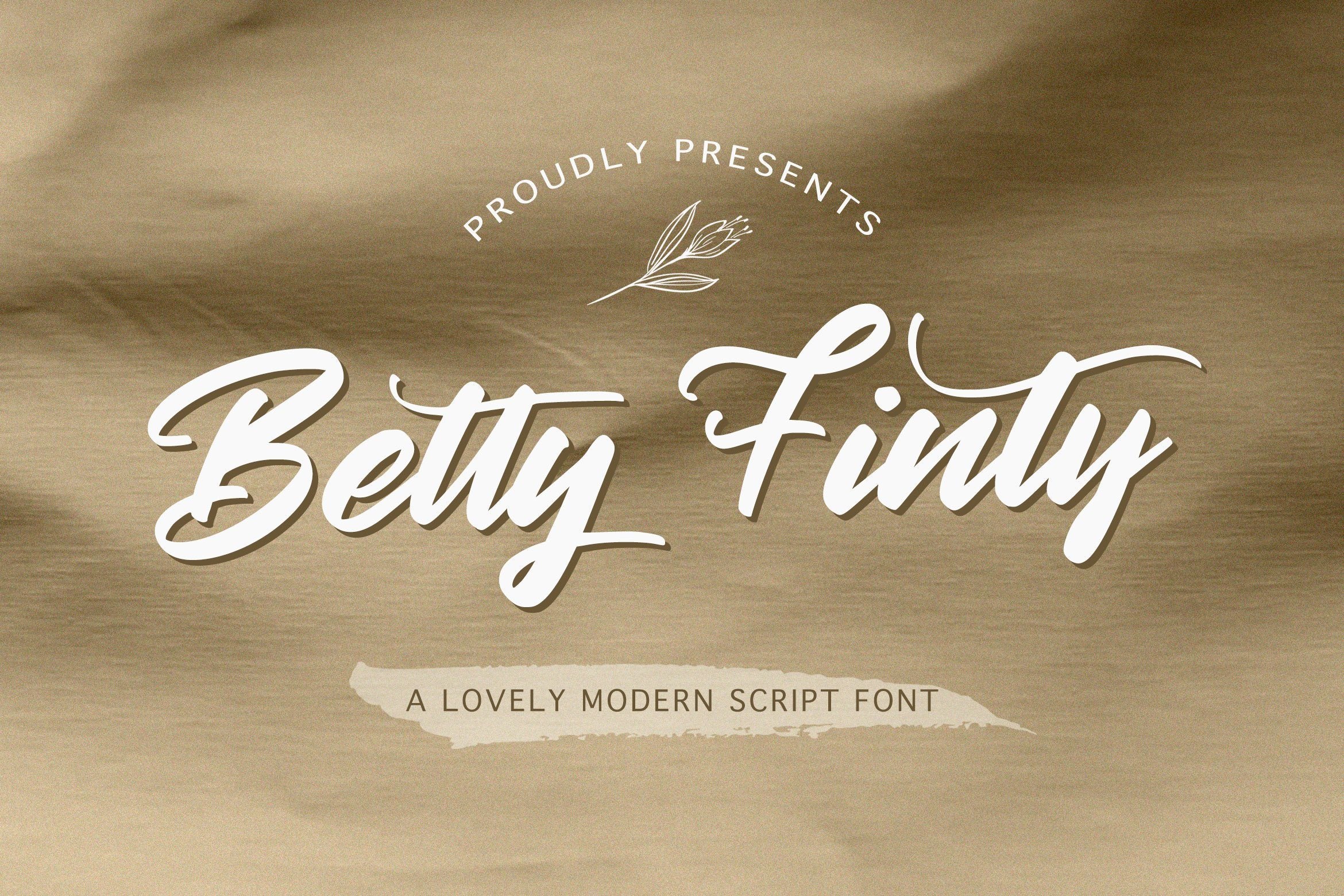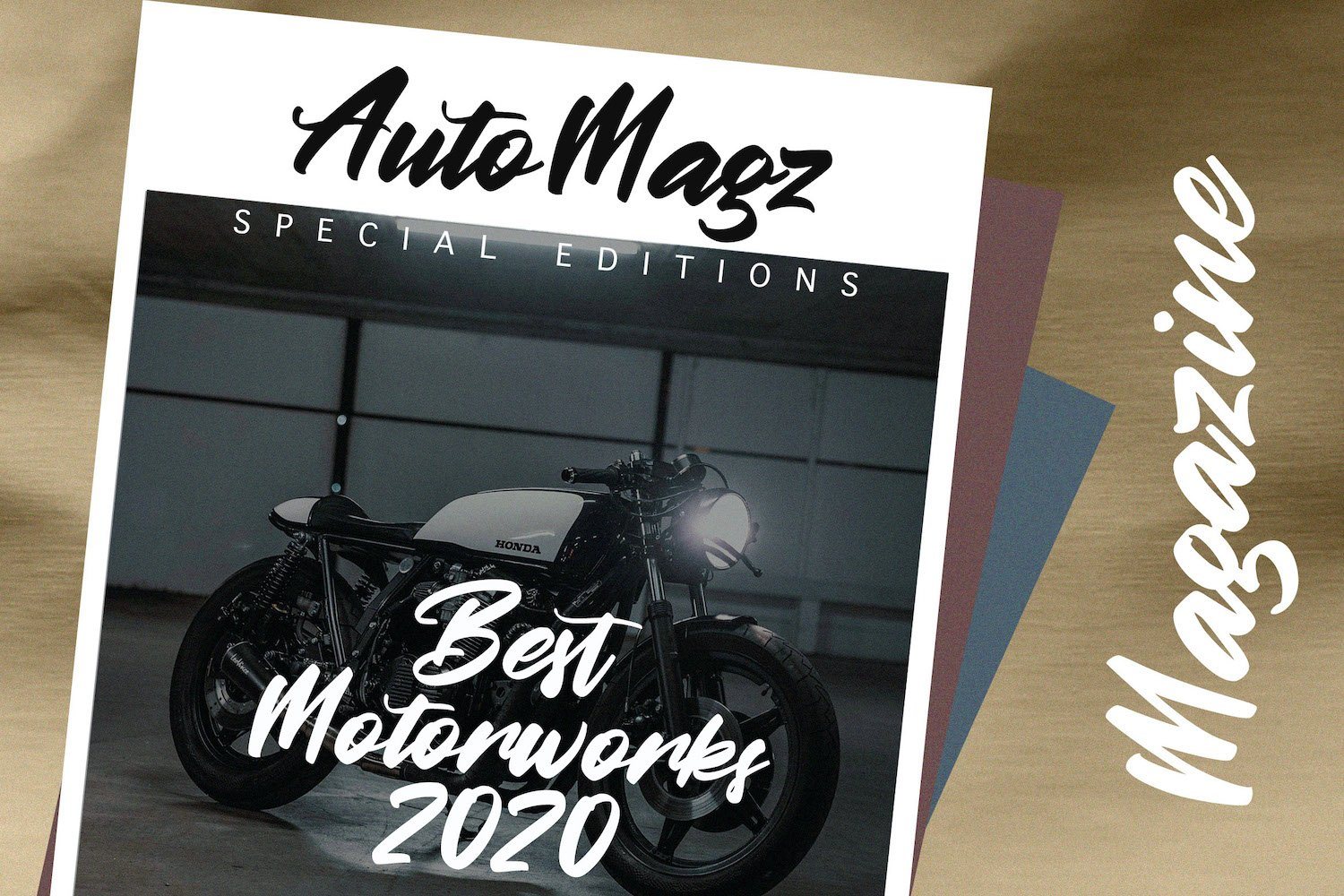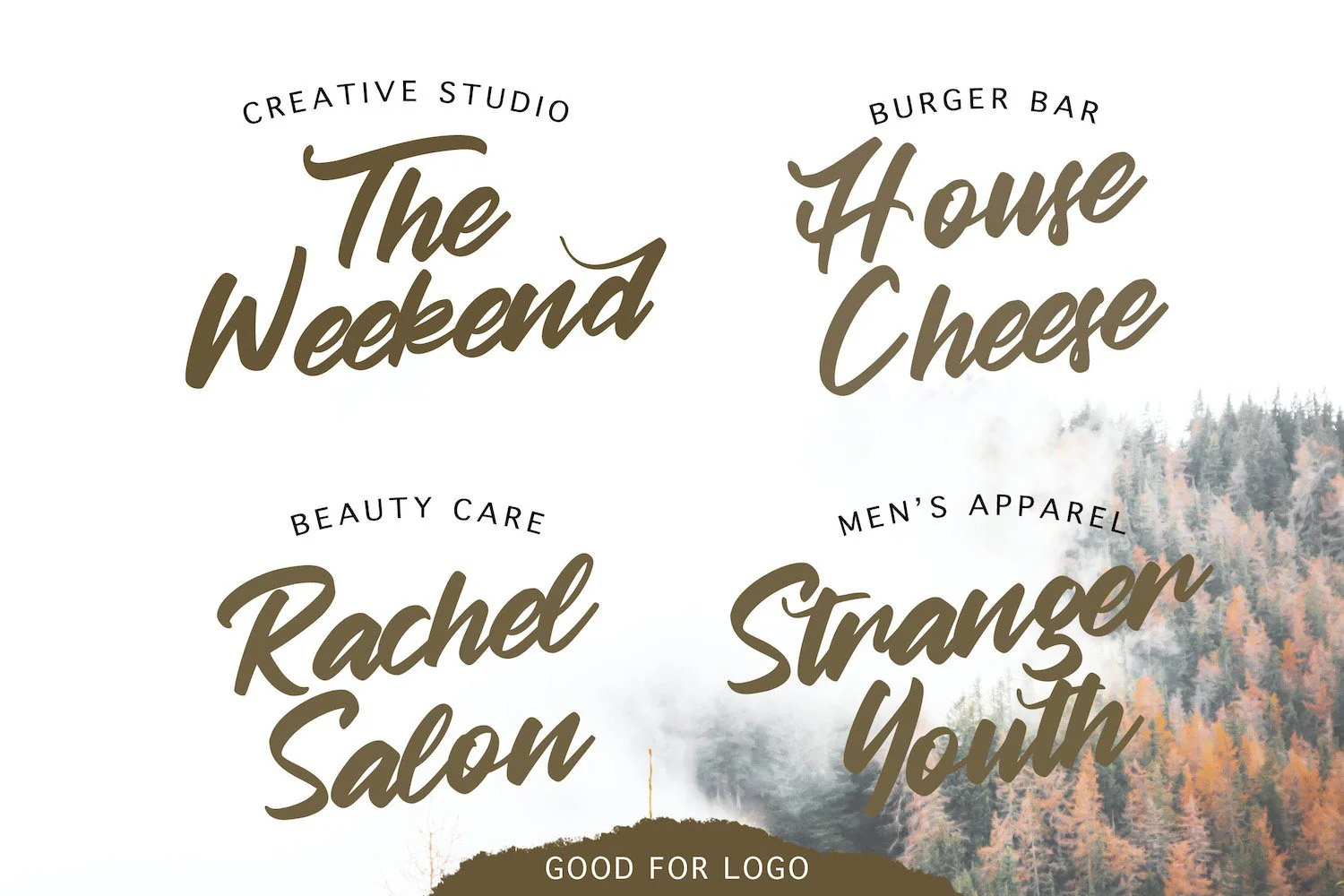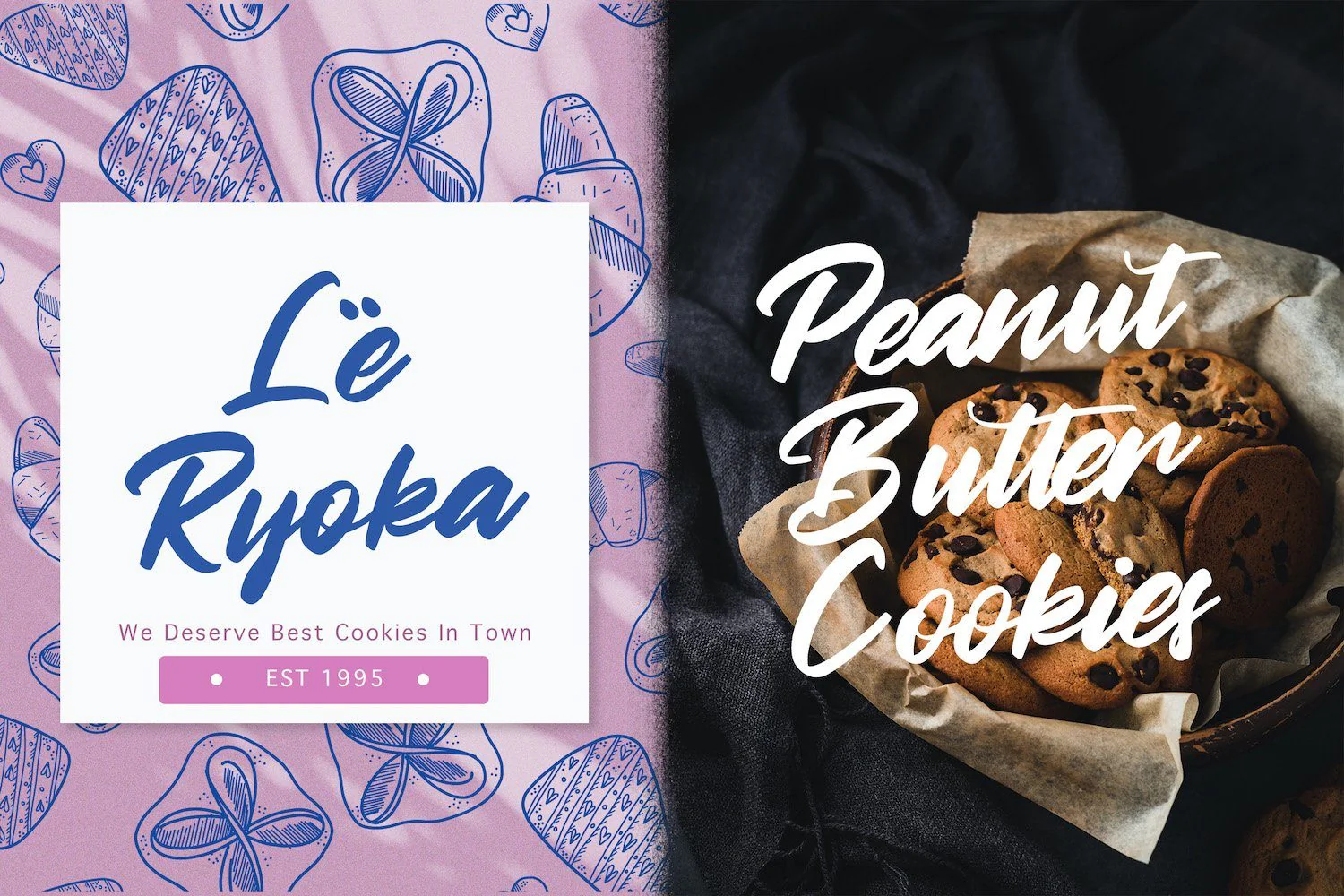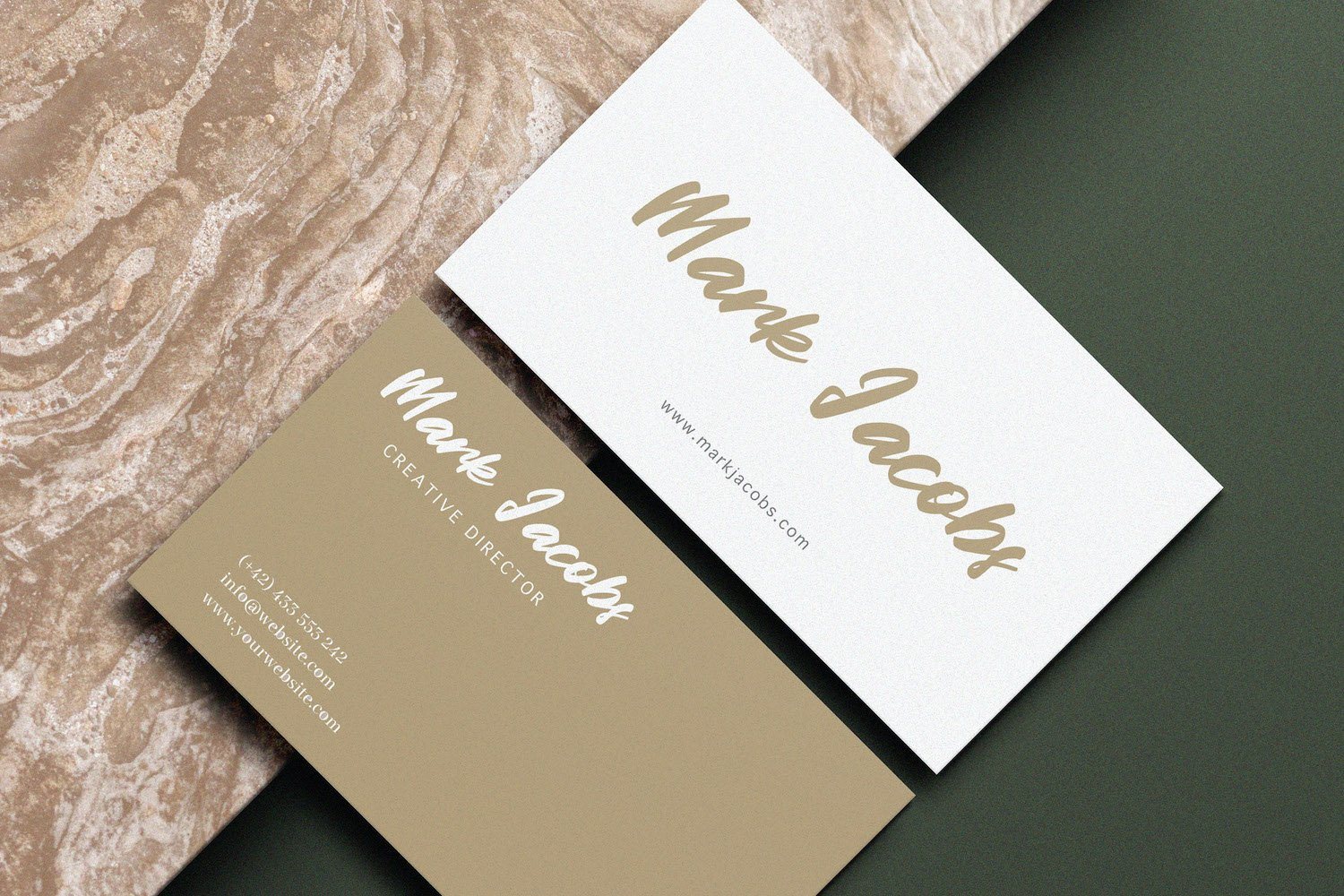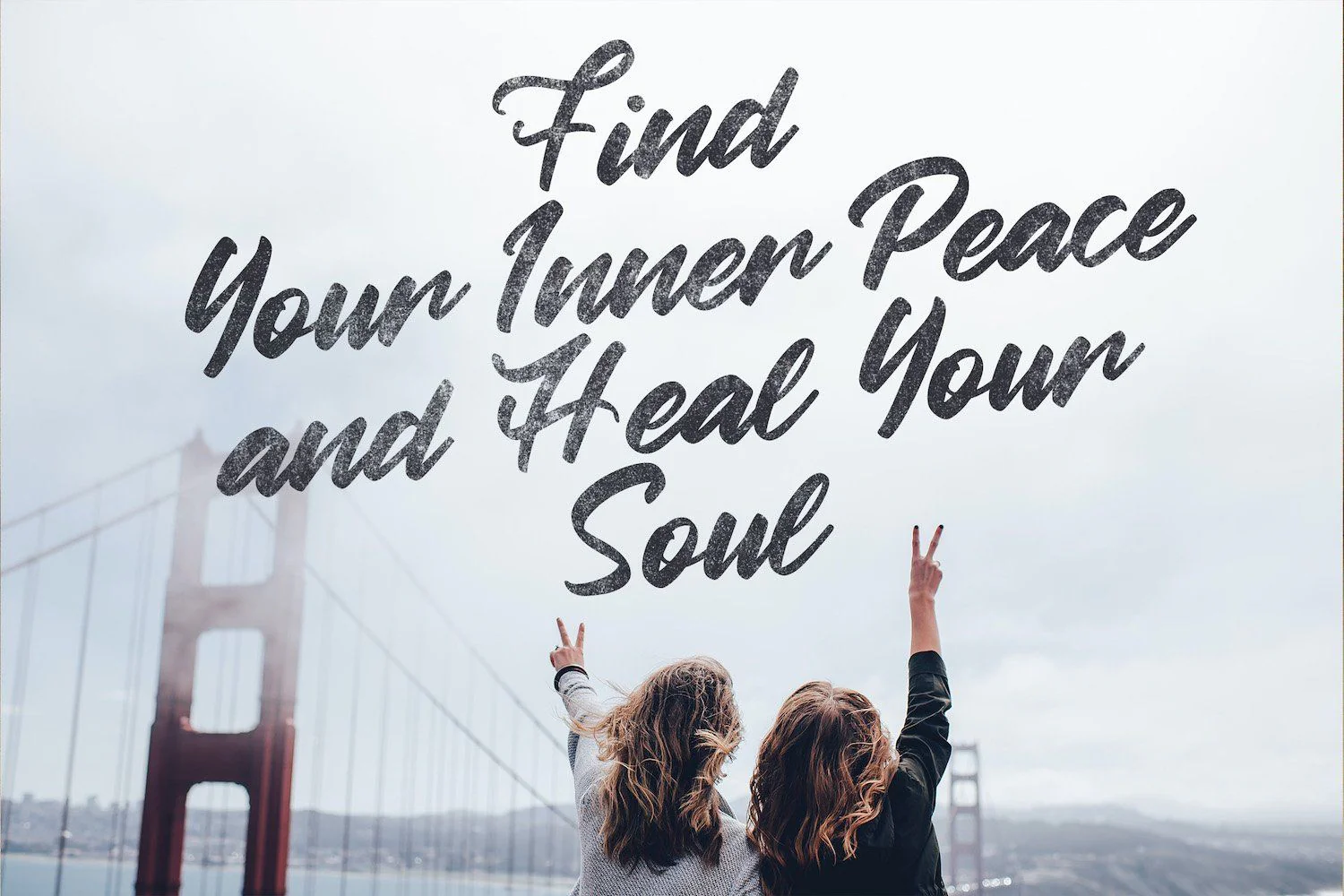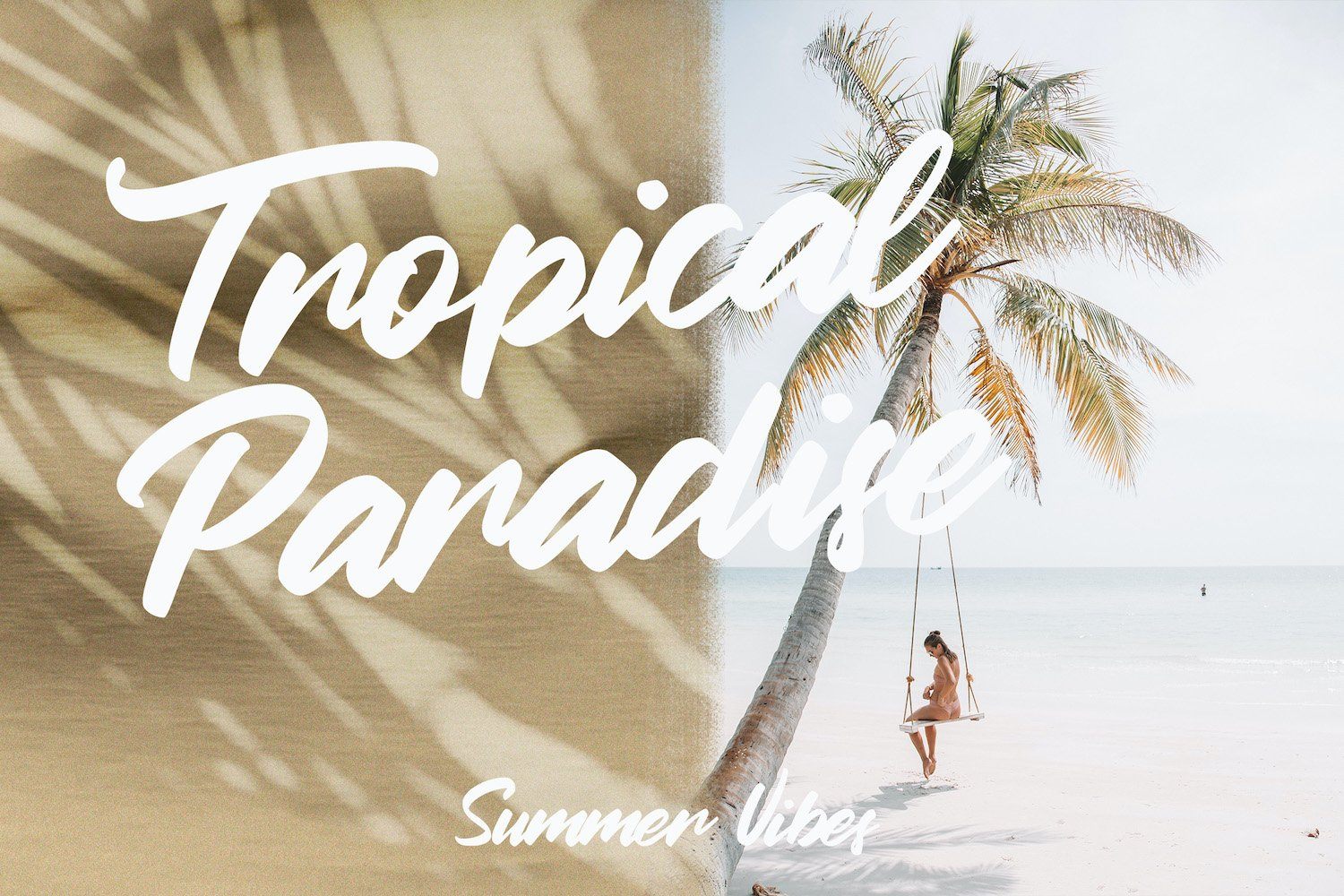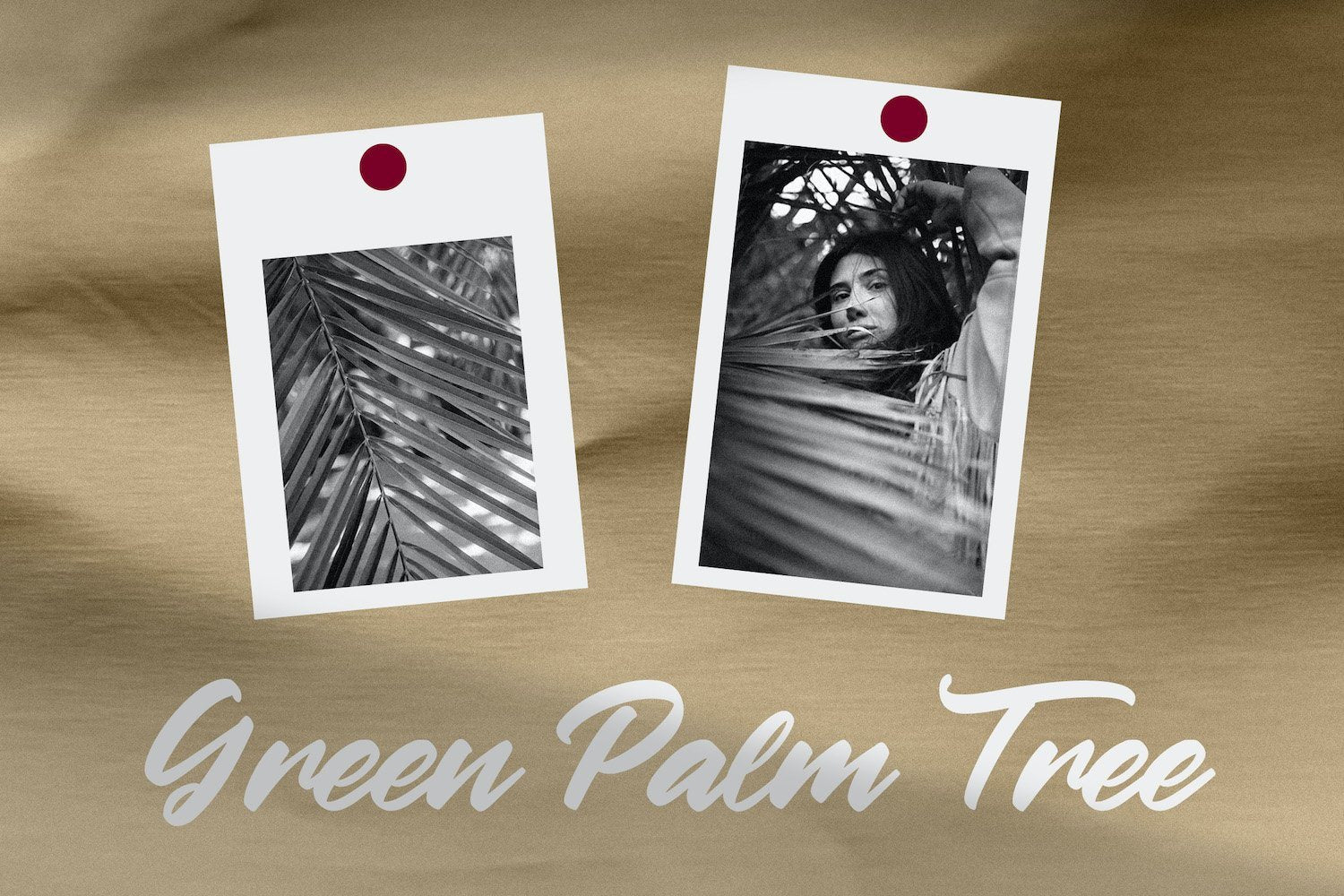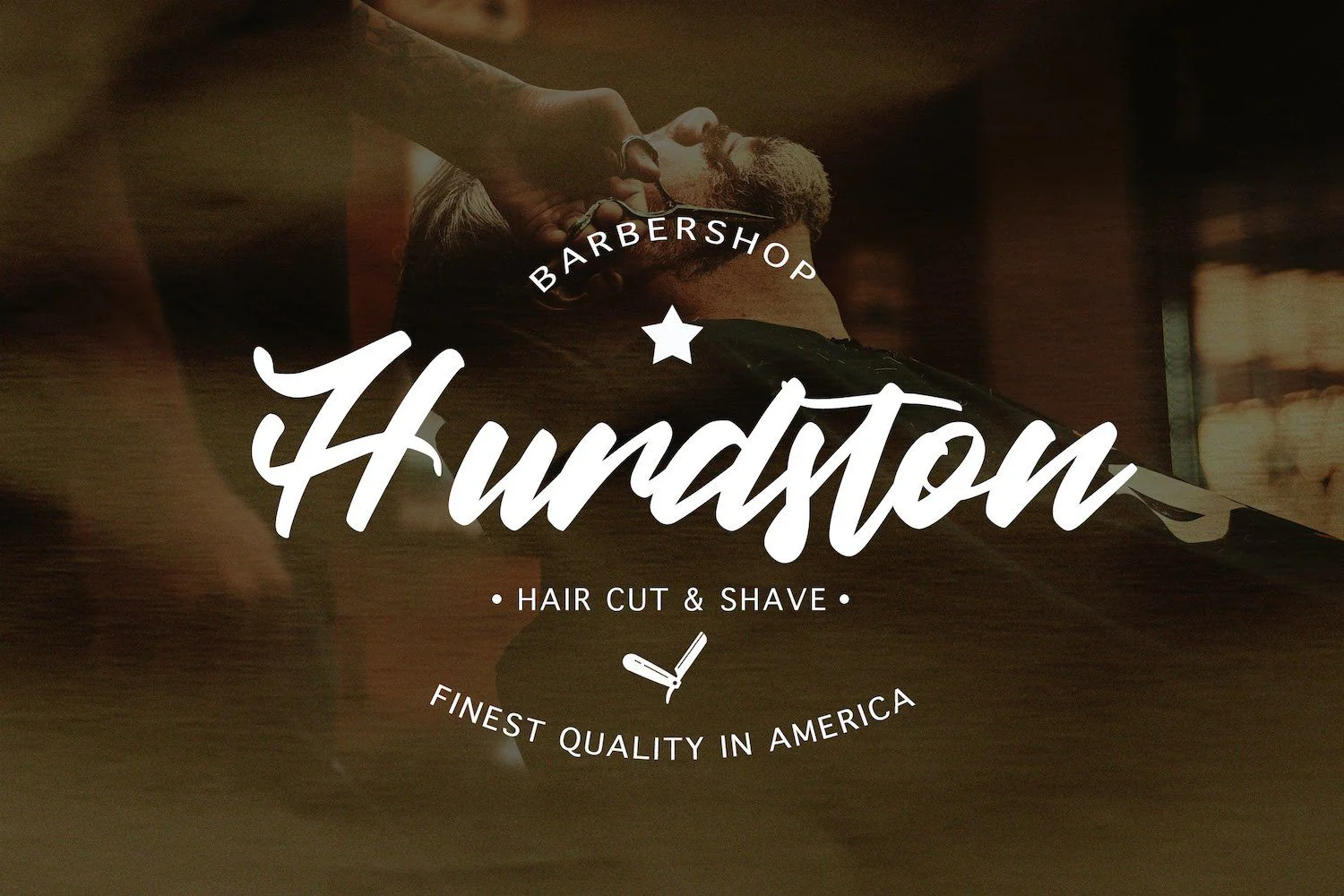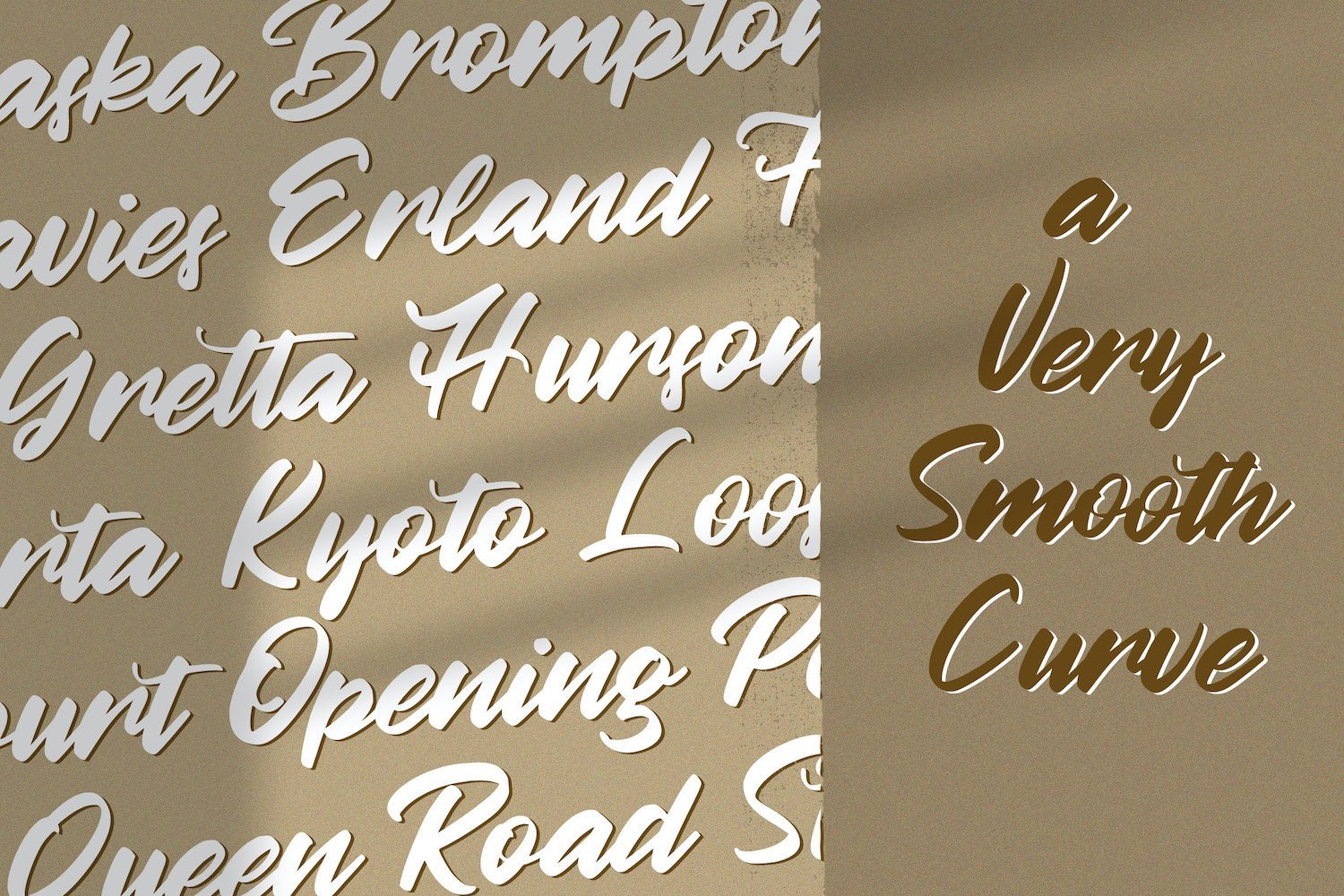
Betty Finty - Modern Script Font
Introducing Betty Finty - Modern Script Font
Betty Finty is a friendly and modern script font with a unique style. It will add a romantic touch to any crafting project! Fall in love with its authentic feel and use it to create gorgeous wedding invitations, beautiful stationary art, eye-catching social media posts, and cute greeting cards.
Introducing Betty Finty - Modern Script Font
Betty Finty is a friendly and modern script font with a unique style. It will add a romantic touch to any crafting project! Fall in love with its authentic feel and use it to create gorgeous wedding invitations, beautiful stationary art, eye-catching social media posts, and cute greeting cards.